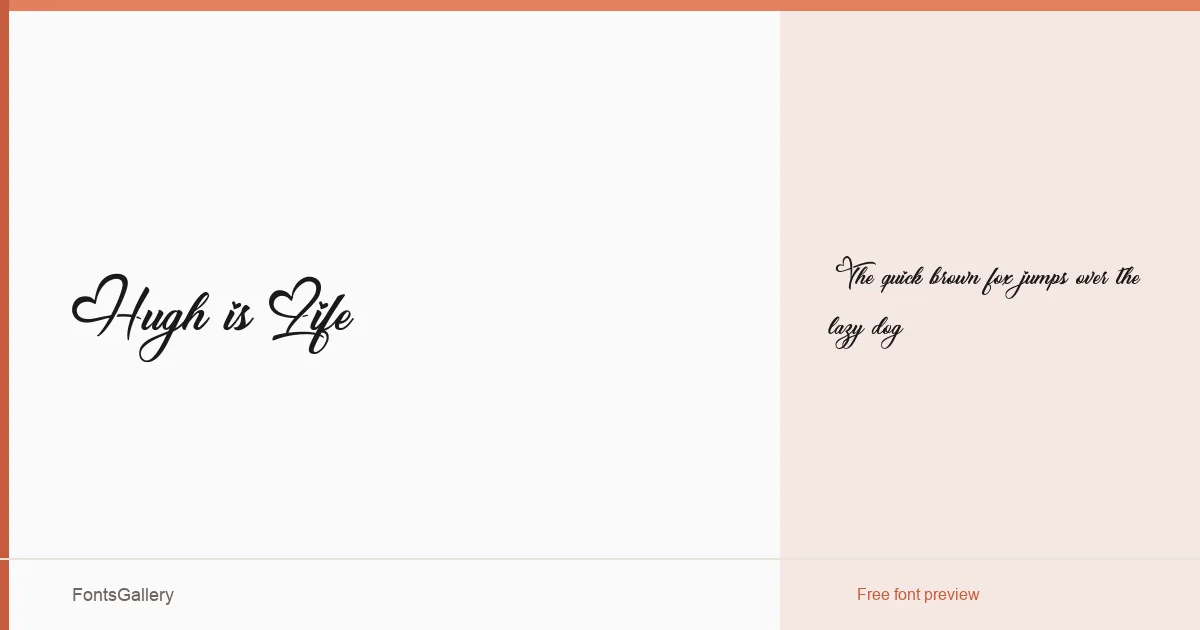
About Hugh is Life Font
Hugh is Life is a graceful script typeface crafted by Billy Argel of Billy Argel foundry. It exudes an elegant and romantic sensibility that makes it instantly captivating for a wide range of design projects. With its classic character, this font brings a timeless charm to any composition it graces.
Hugh is Life features flowing script letterforms that embody elegance and romance in every curve and stroke. The classic styling of its characters lends a sophisticated, hand-lettered quality that feels both refined and personal. Its graceful rhythms and smooth transitions between letters create a cohesive and visually pleasing aesthetic throughout any text setting.
This typeface shines in applications such as wedding stationery, invitation cards, greeting cards, logos, and social media graphics where an elegant and romantic tone is desired. For a beautifully balanced typographic pairing, Hugh is Life works wonderfully alongside Aresink for a harmonious script combination, or paired with Helvetica to create a striking contrast between expressive script and clean sans-serif type.